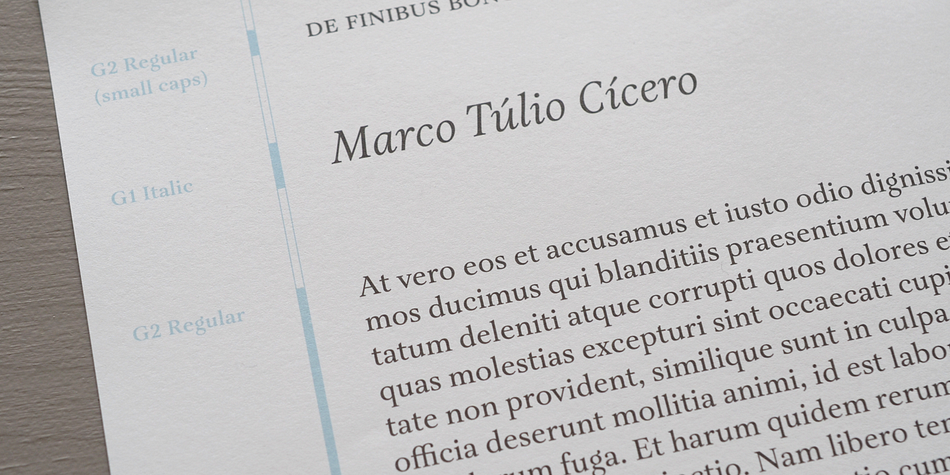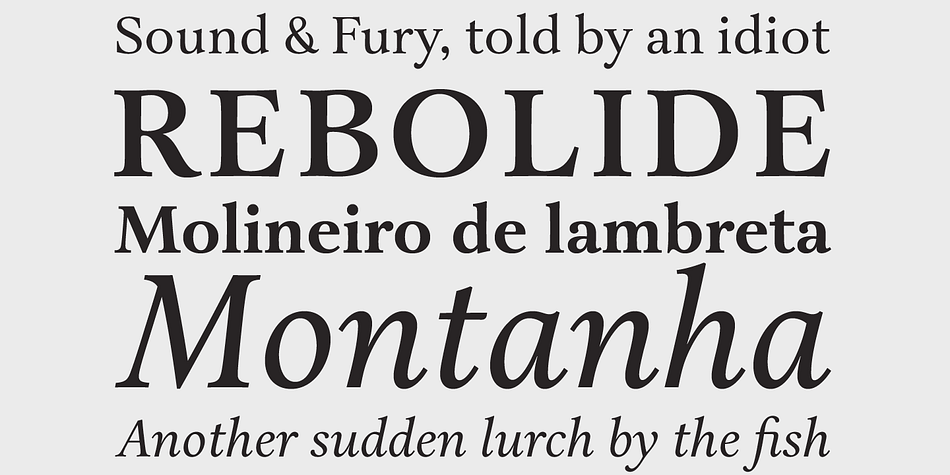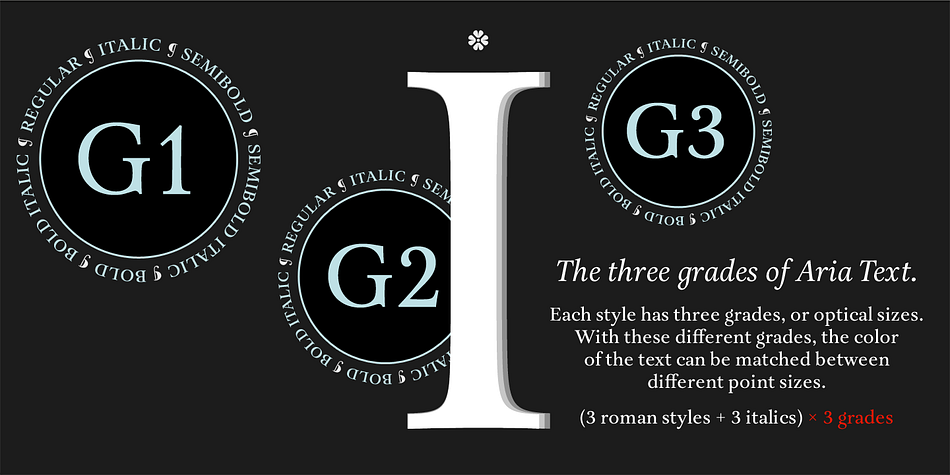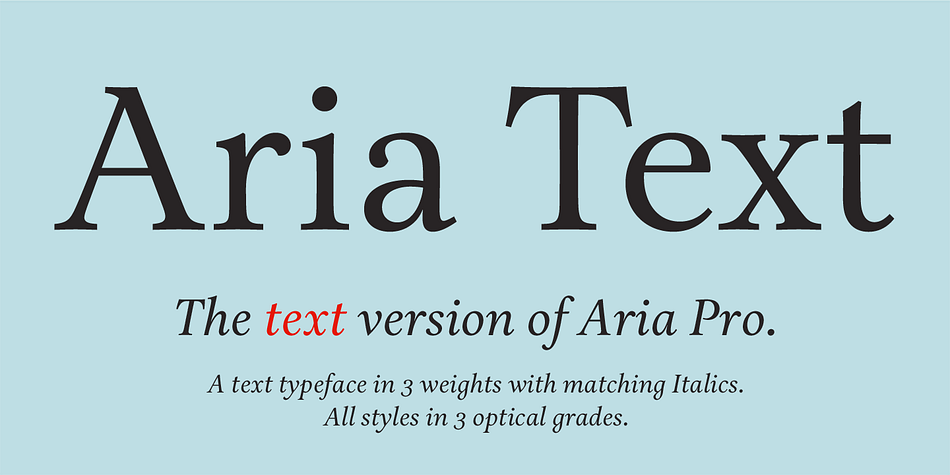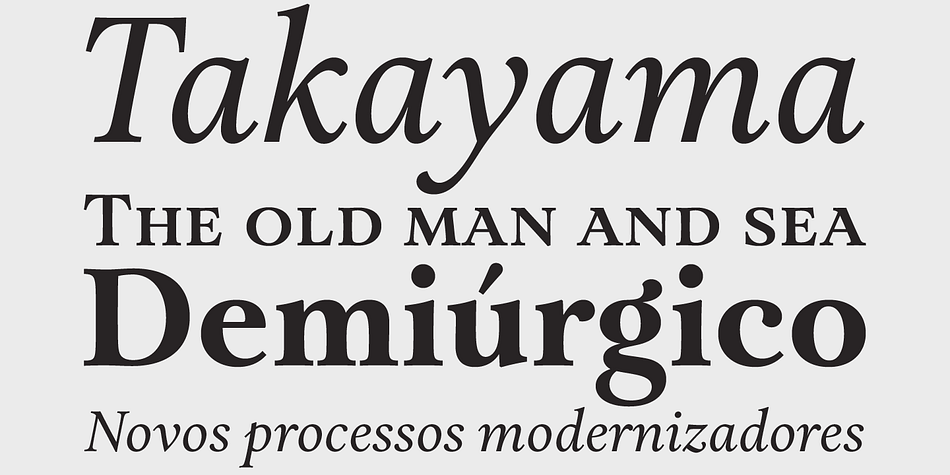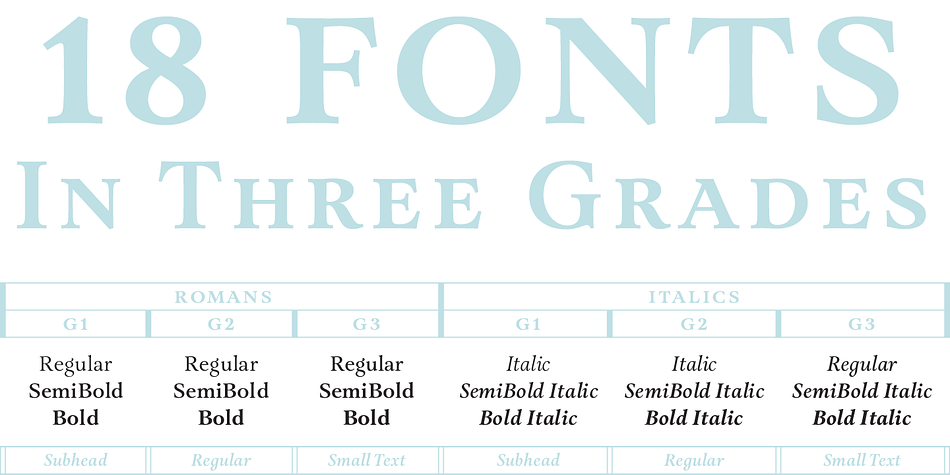
Aria Text is a serif font family. This typeface has eighteen styles and was published by Rui Abreu.
Aria Text is the new text version of the lyric Aria. More sober and rational, Aria Text was designed for books. The decoration mannerisms, extreme contrast, the italics angle, among other attributes of the original display typeface were now tamed and rethought towards readability and transparency.
The new text fonts were designed to perform well in a page with different point sizes. The family comes with 3 grades for each one of the main six styles. That way, the color of headlines, subheads, text and captions can be matched.
Aria Text is a fully featured family of 18 OpenType fonts in total, with small caps for all the weights, different figure styles including old-style and tabular sets, full latin language support, stylistic options, ligature sets and more.